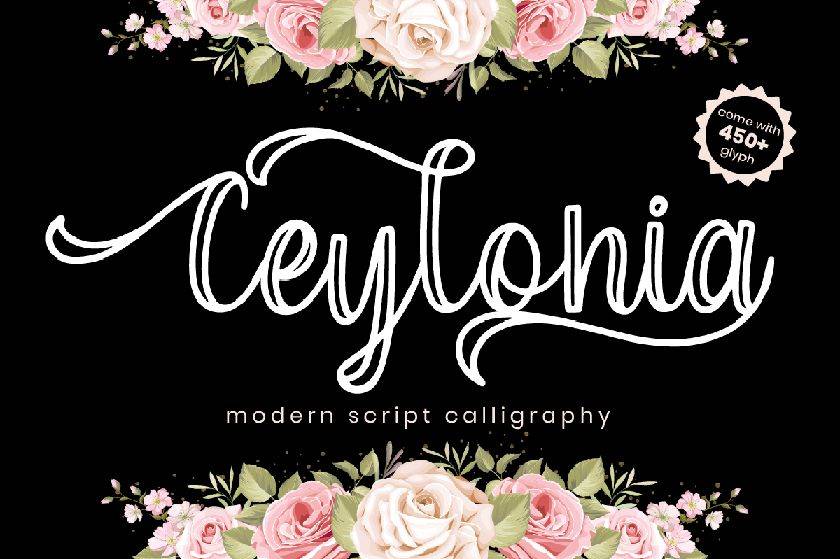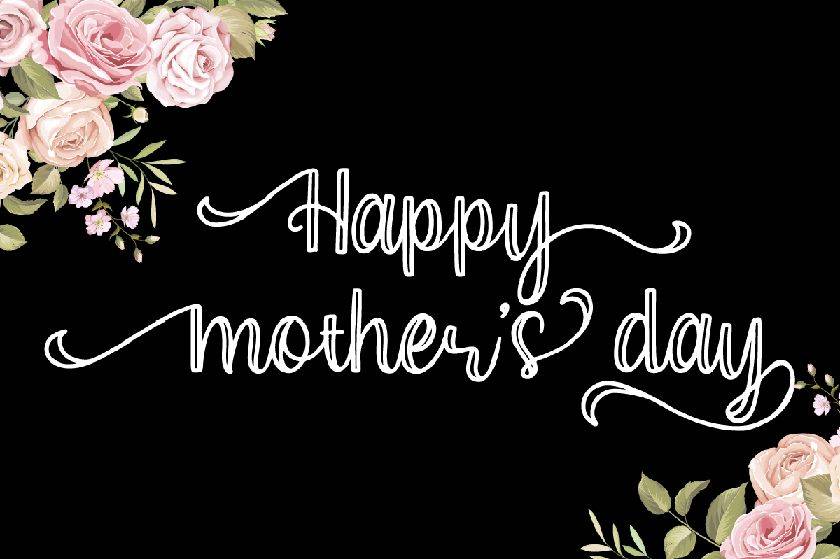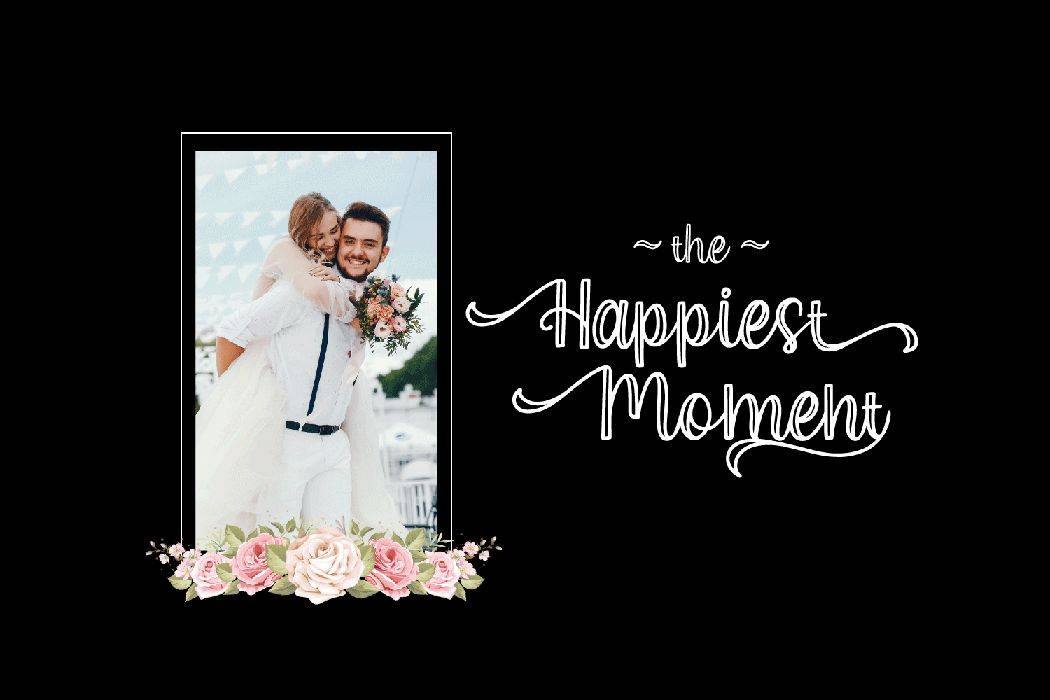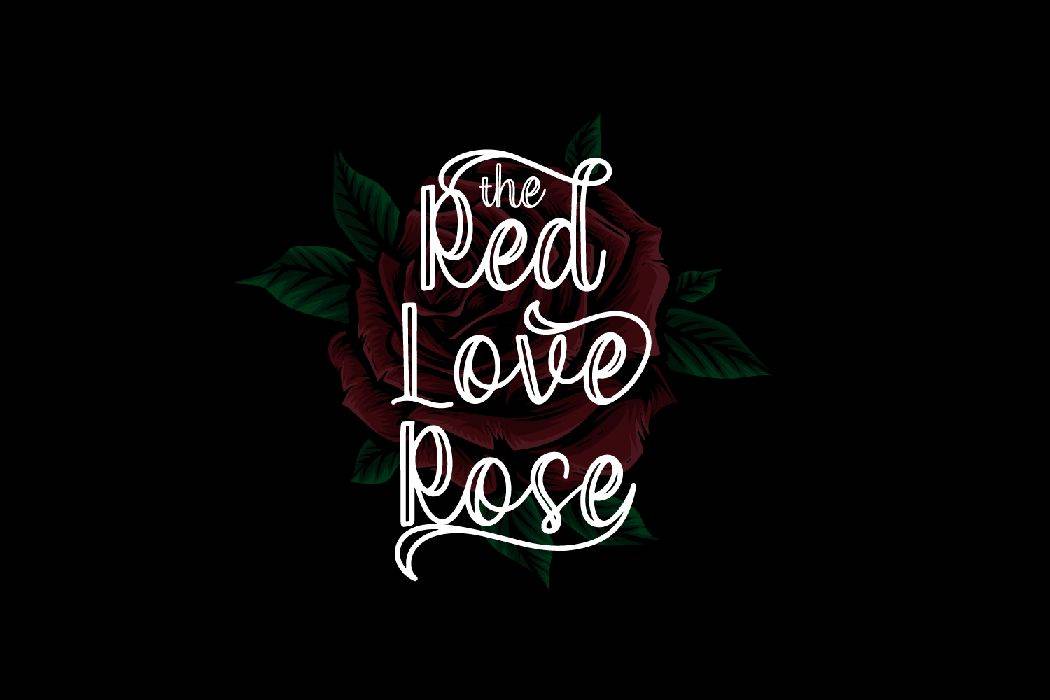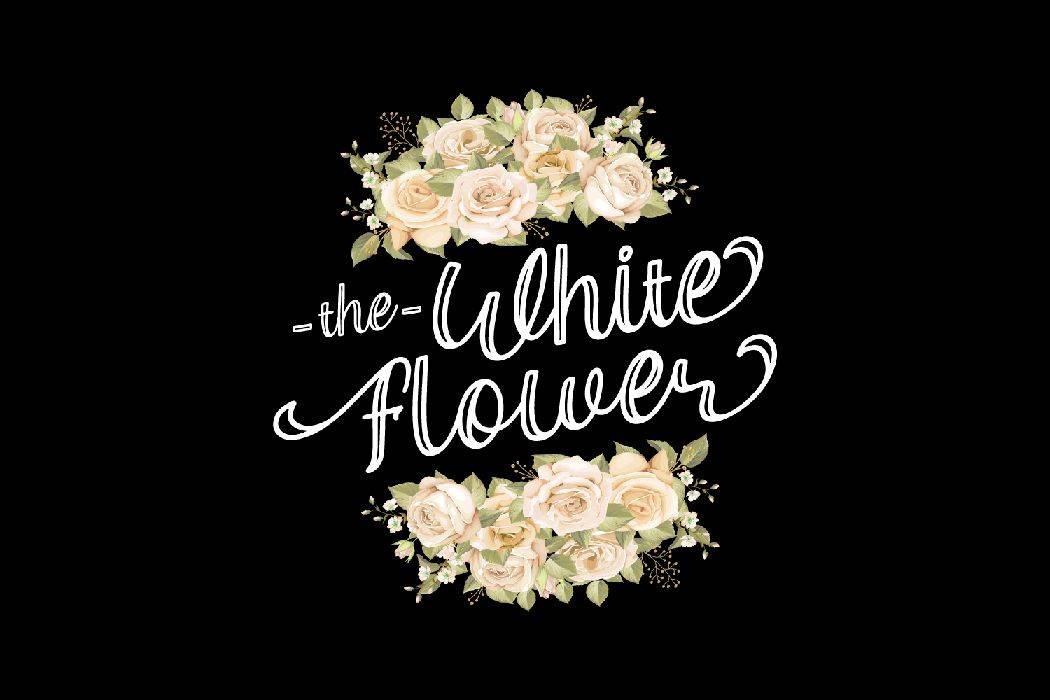
Ceylonia is a playful and elegant script font that features light, narrow strokes with a whimsical, handwritten feel. Its tall x-height and consistent stroke width make it highly readable while maintaining a charming, casual personality perfect for creative branding, invitations, and stylish headlines. This font works well where a friendly yet refined look is desired, adding a touch of sophistication without losing approachability.
Ceylonia Font
About Ceylonia Font
| Font family | Ceylonia Font |
| Designer | Fadli Ramadhan Iskandar - Attype Studio |